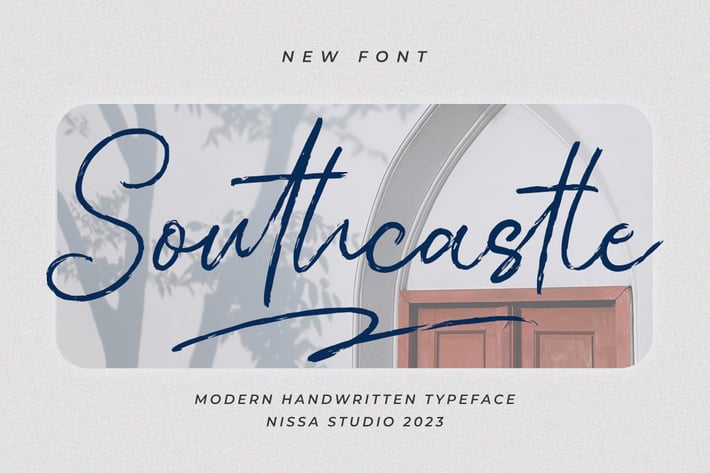
Southcastle - Brush Font
Southcastle is a gorgeous and bold brushed display font, crafted to give your headlines and logotype projects a stylish touch. This font reads as strong, confident, and dynamic, and can add tons of nostalgic character to your designs.
Modern Handwritten Font
Beautiful Swash (Ending tail)
Beautiful Titling (Beginning tail)
Special Ligatures